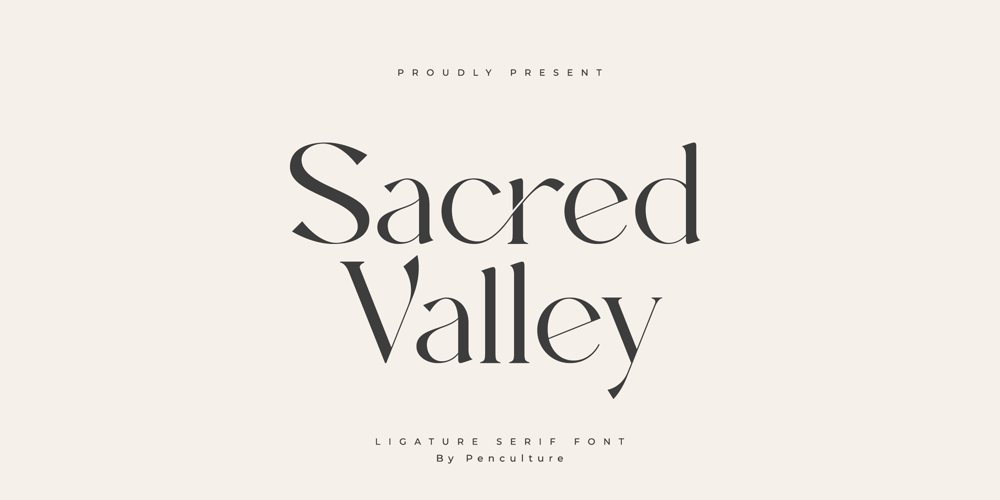
Sacred Valley Font Family was designed by Revo Farsiky and published by Pen Culture. Sacred Valley contains 1 styles and family package options. Proudly present “Sacred Valley – Ligature Serif Font”Sacred Valley is modern ligature serif font with unique and elegant style. This font perfect for branding, logo, invitation, magazine, and many more.Feature and what will you get: Outstanding uppercase and lowercase Awesome ligature Punctuation Multilingual Support I really hope you enjoy it – please do let me know what you think, comments & likes are always hugely welcomed and appreciated. More importantly, please don’t hesitate to drop me a message if you have any issues or queries.Thank you